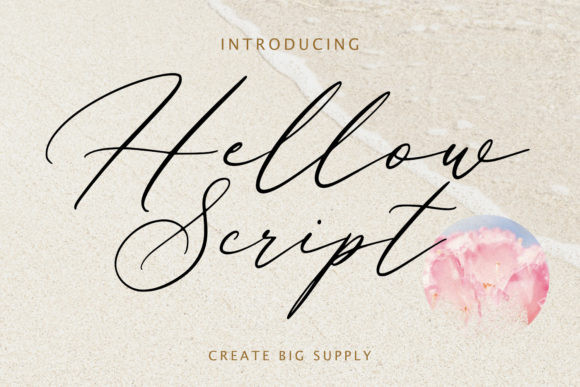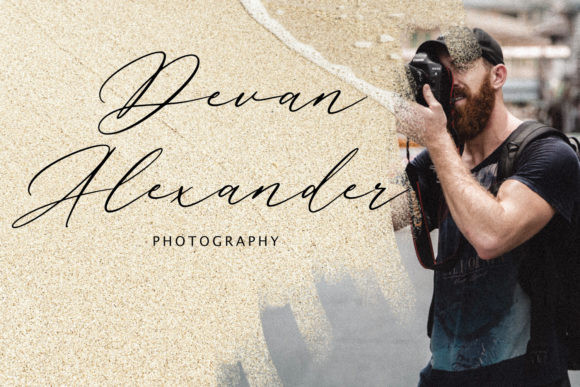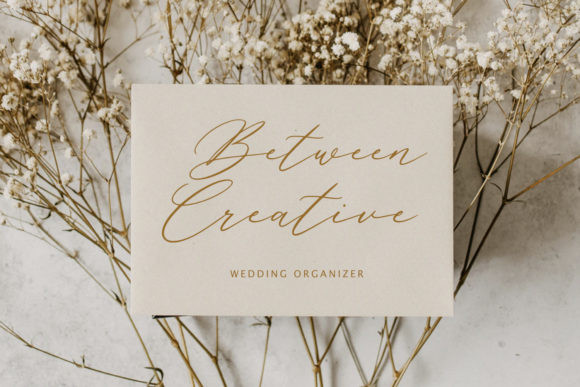
Hellow Script Font
Hellow Script is a ravishing and cursive script font. Fall for its astonishing style and use it to create gorgeous wedding invitations, beautiful stationary art, eye-catching social media posts, and much more!